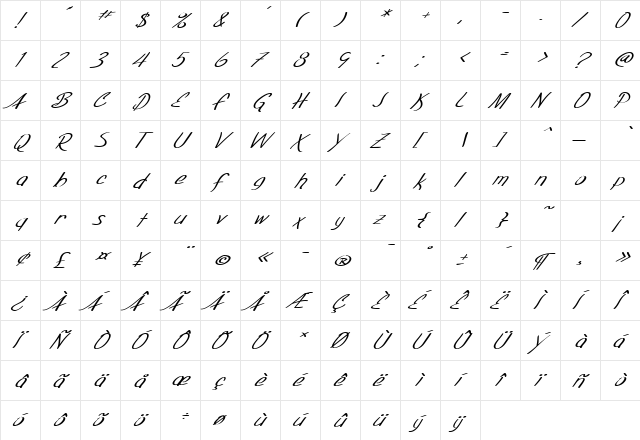
SF Foxboro Script Extended Italic
Design Context for SF Foxboro Script Extended Typeface
SF Foxboro Script Extended brings a calligraphic fluidity to the page — its connecting strokes and expressive curves give it an unmistakably human quality.